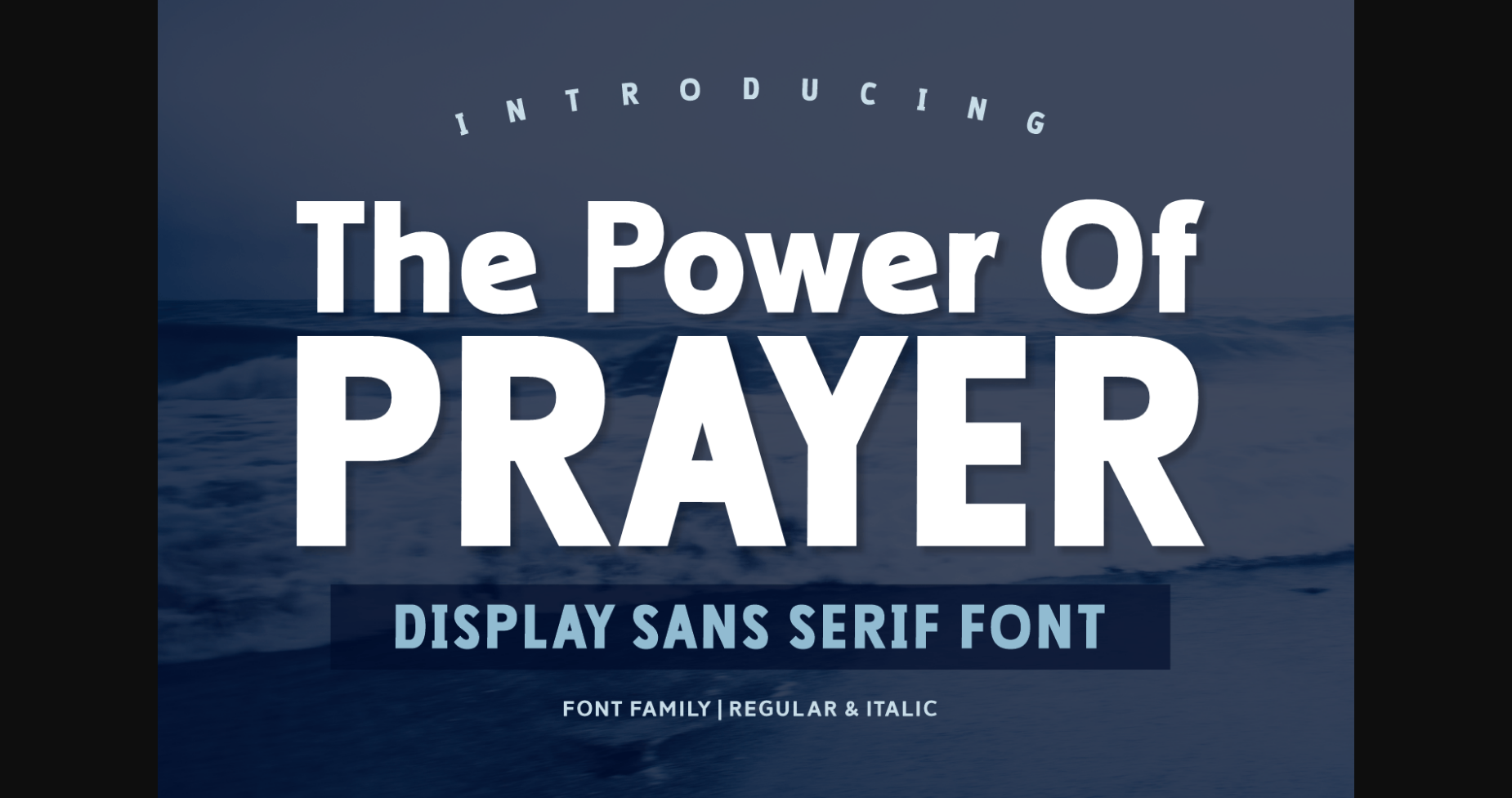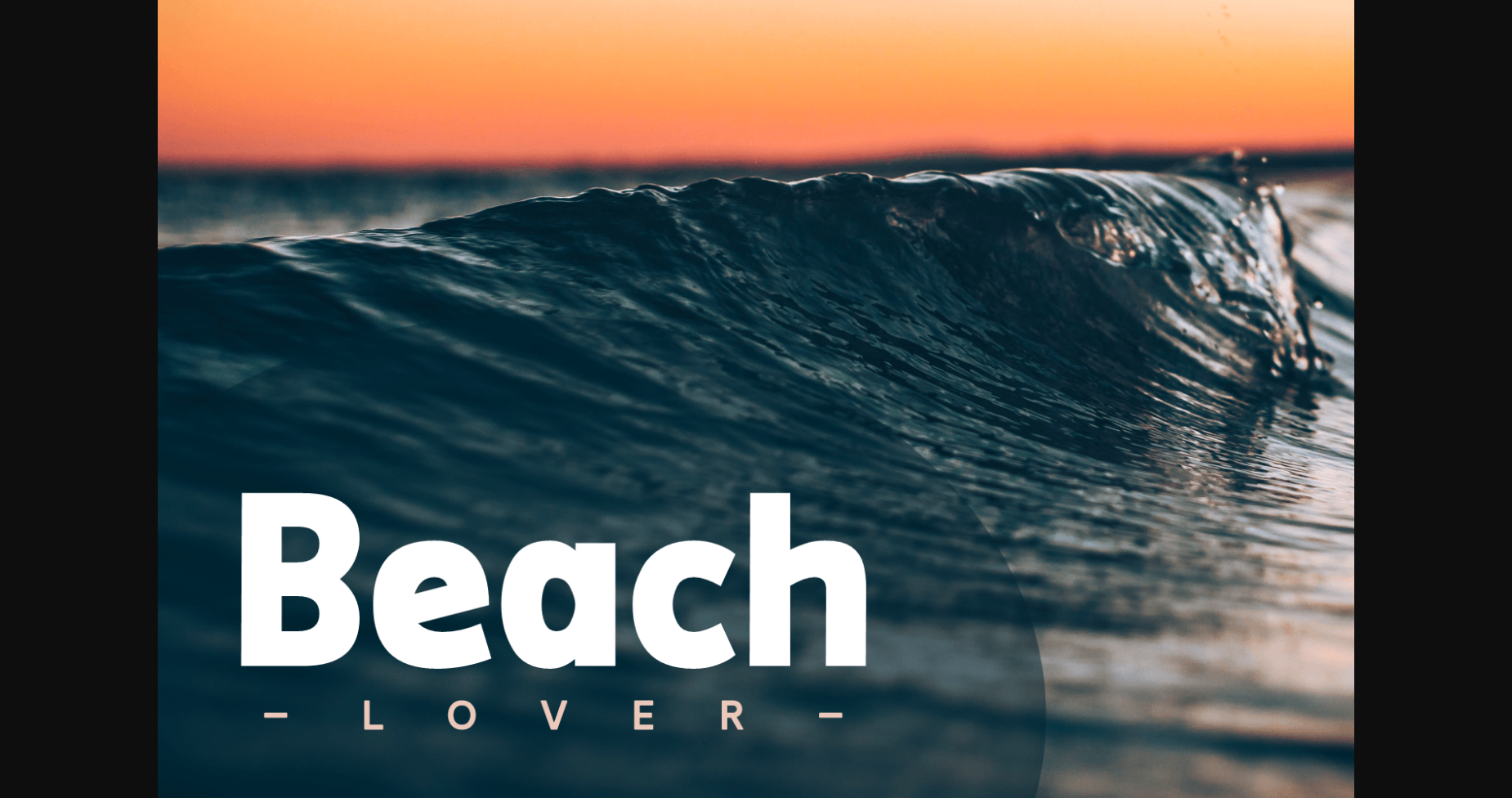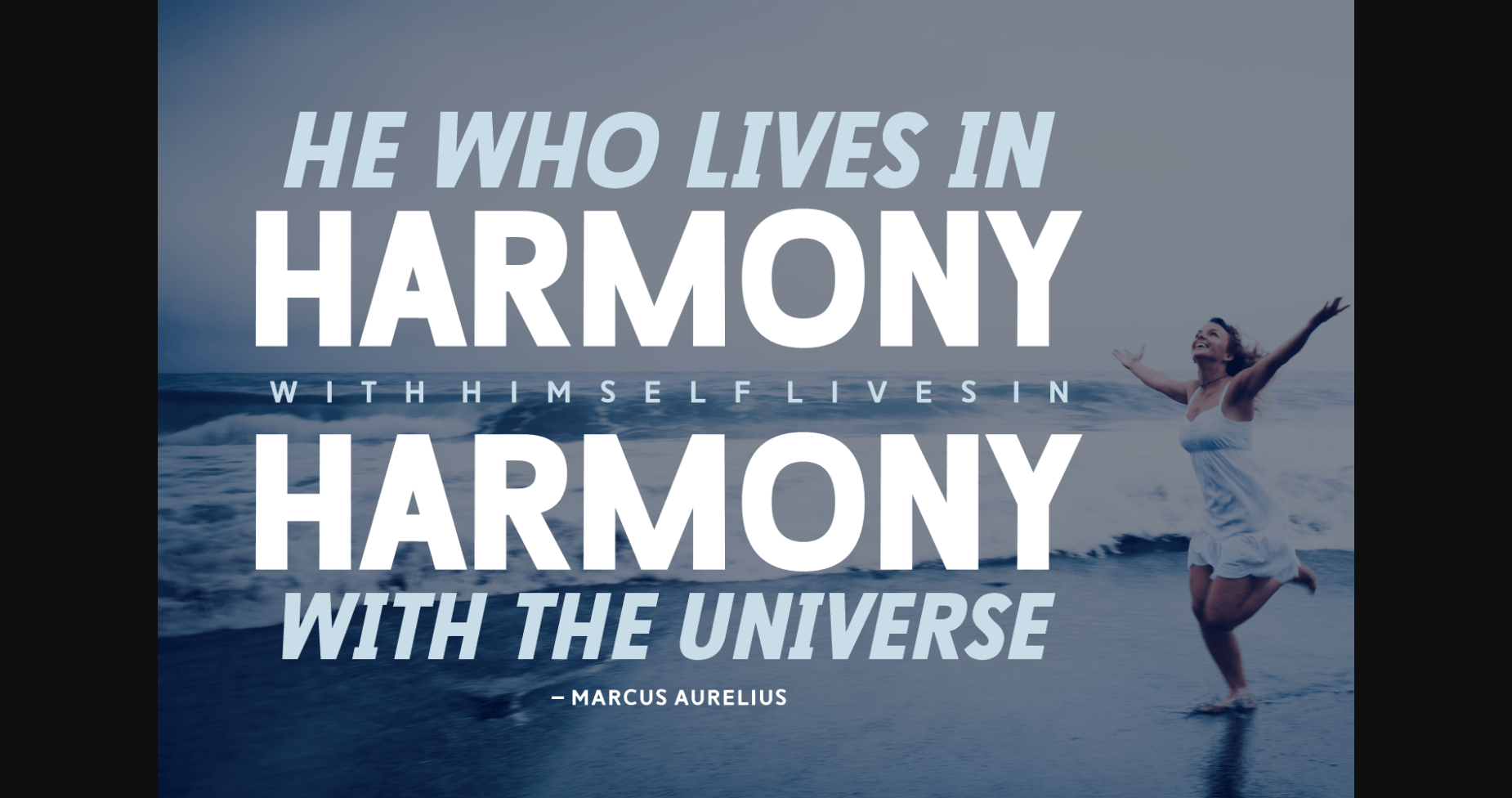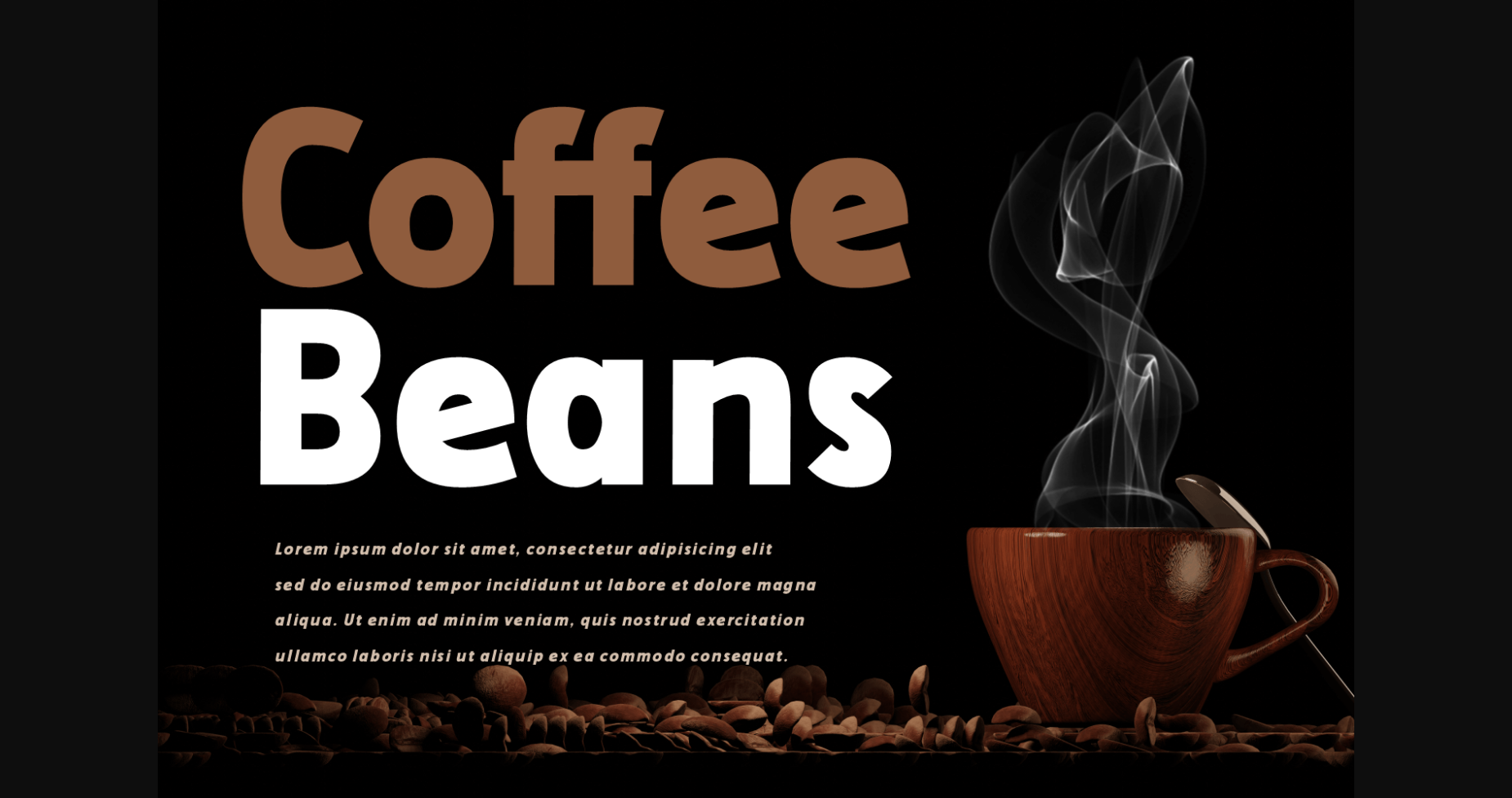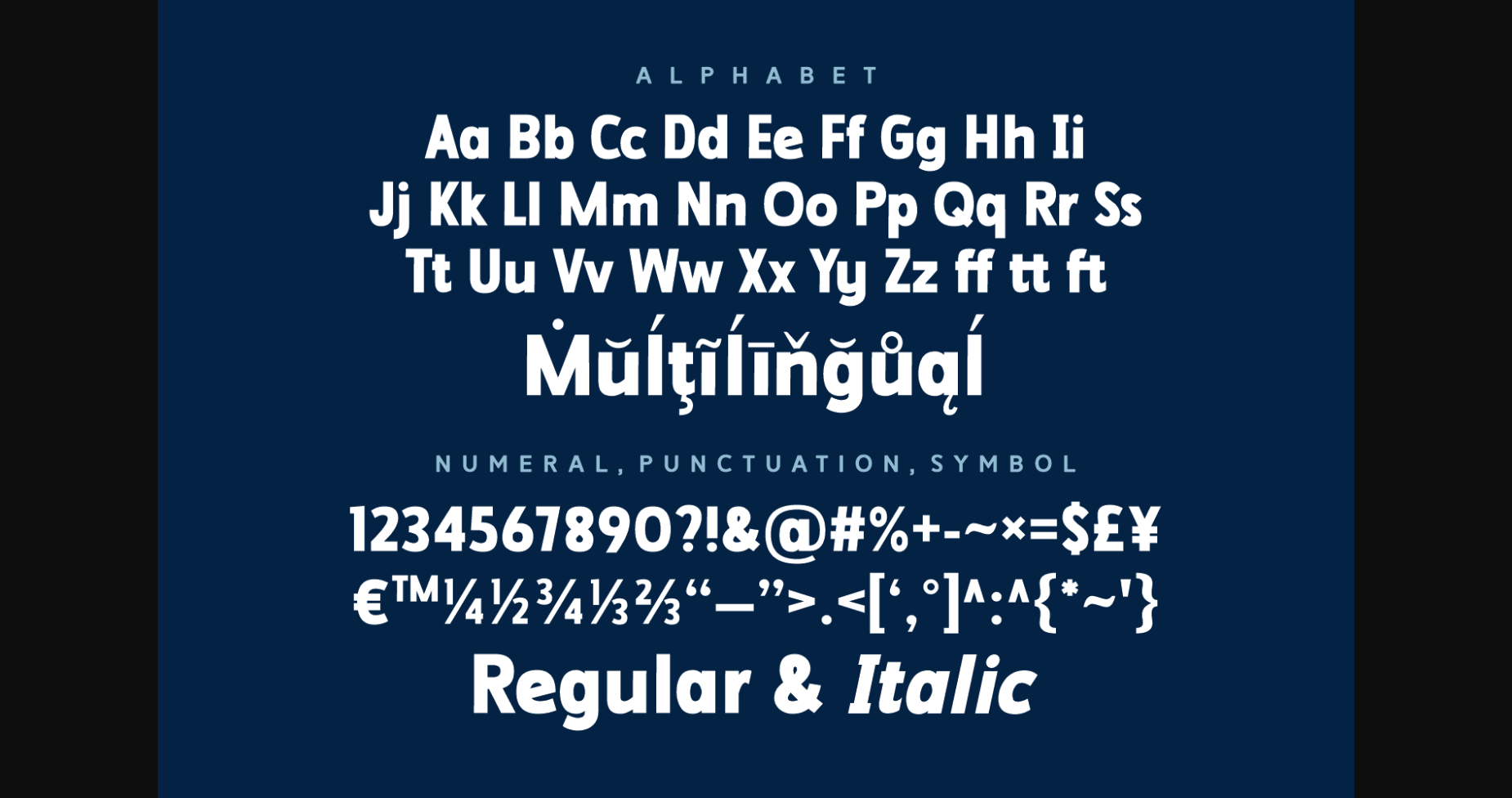
The Power of Prayer Font
About The Power of Prayer Font
The Power of Prayer is an elegant and modern sans serif font. Its minimalist and clean vibe can easily be applied to your favorite designs such as book covers, magazines, social media posts, invitations, and so much more!